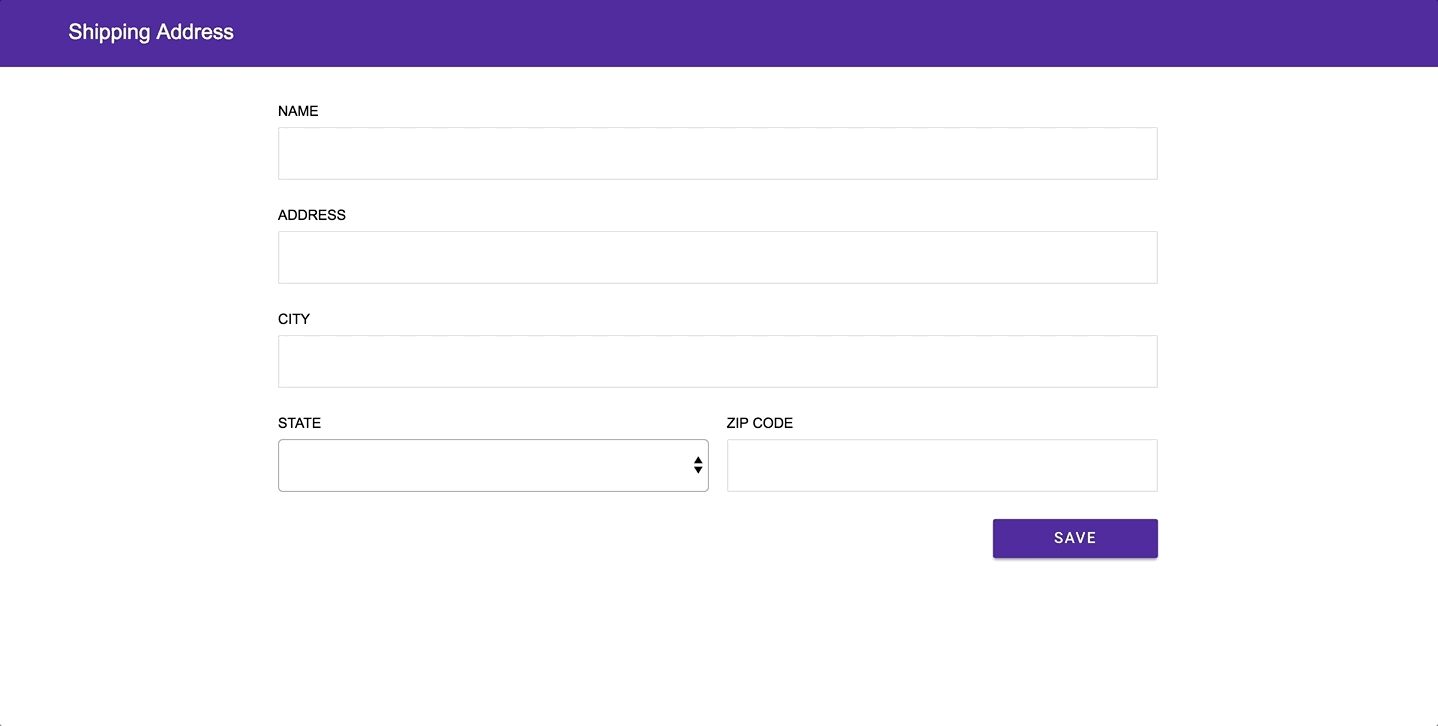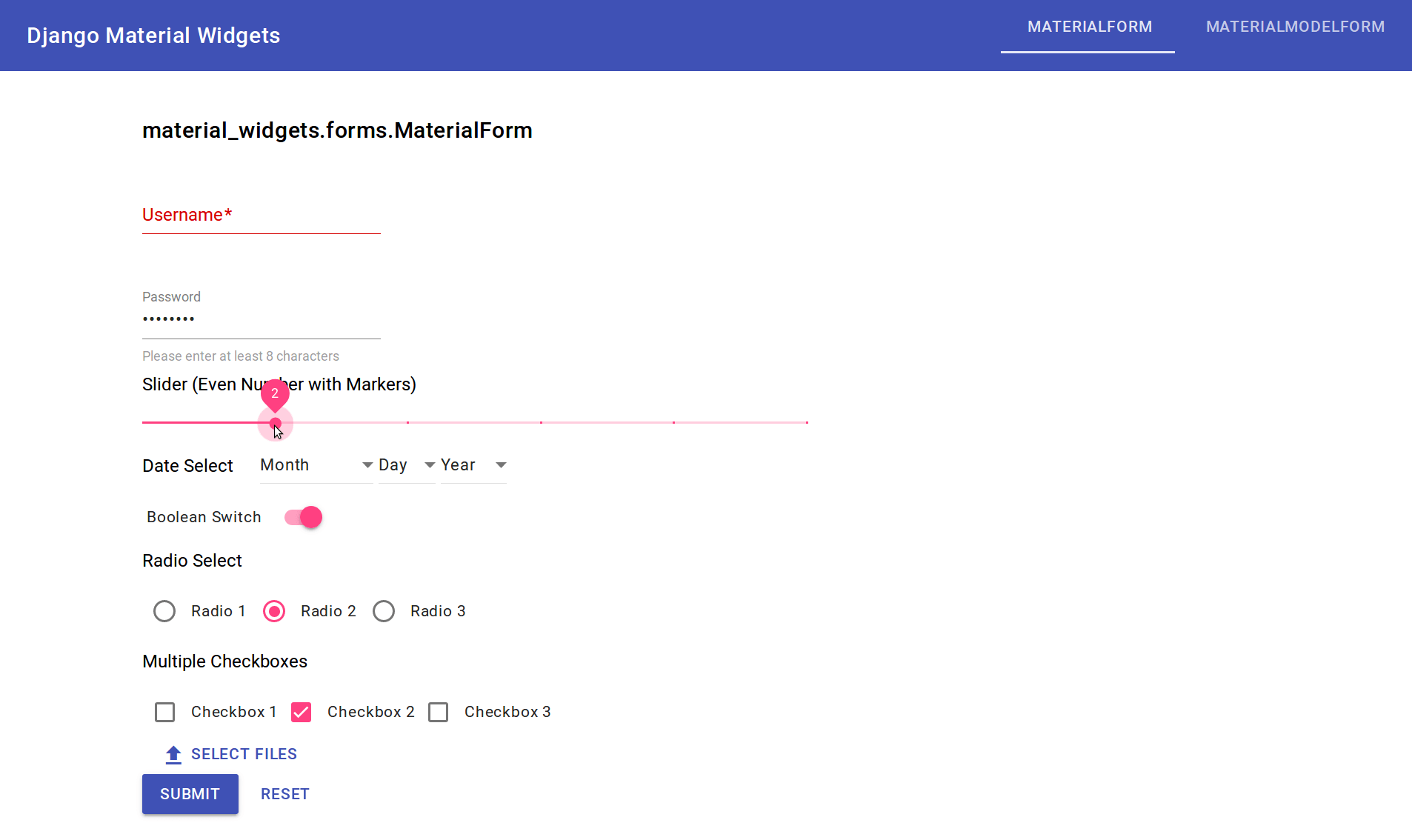
The typographic styles in this module are derived from thirteen styles: Leading, kerning, etc campuses and centers
Free Mdc-Typography-Font-Family Basic Idea, Not all (most don’t) of the cards get the raleway font. Leading, kerning, etc also talk about type treatments:
Leading, kerning, etc also talk about type treatments: Android:textsize is the size of the text, typically an sp dimension; We need to figure out and document how users are expected to obtain a base font style for general text now. Fontfamily is the font family, typically an @font/ resource referring to an xml or downloadable font;
These unconventional font designs have details and intricacy that help attract the eye. Sets the baseline height of a text element from top. Applies one of the typography styles, including setting the font to roboto. Explore over 1 million open source packages. Lmg Arun Gujarati Font Software lasopaflo.
Display different font families and discuss use cases. Although the typography is traditional, the basic elements are great. I'll check in tomorrow to see if there's a patch release on the horizon that we can cut. The mdc uptown font is a great choice to increase the prominence in your project. Bevel Block Stunning Display Fonts Creative Market.
The typographic styles in this module are derived from thirteen styles: The rest of it below the heading (“battery levels” in the screenshot) is the default font. Examples include cottonwood, critter, and alpha geometrique. Classifying variations of width, weight and posture within a family. MDC Chiropractic Logo logodesign chiropractic Chiropractic logo.
The Theme Provides A Set Of Type Sizes That Work Well Together, And Also With The Layout Grid.